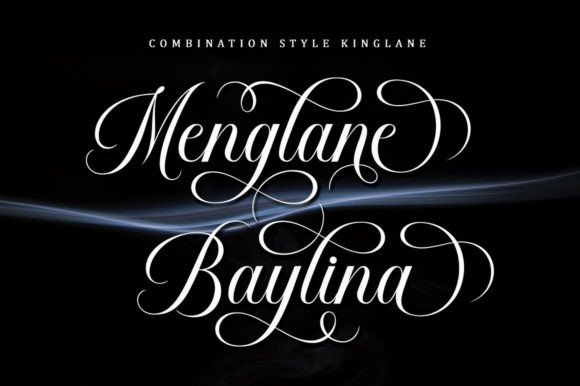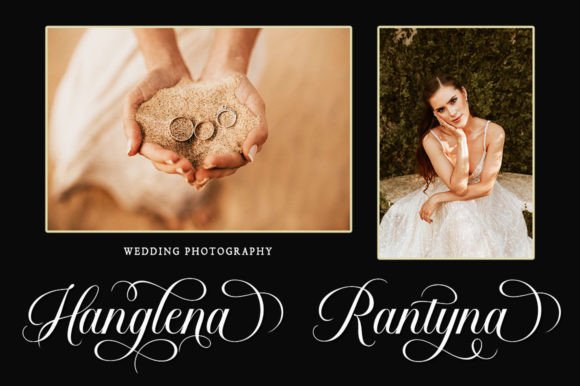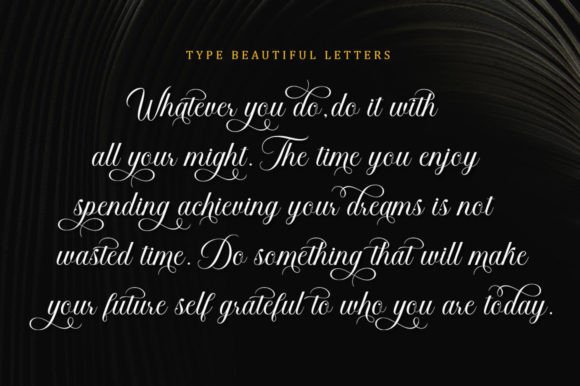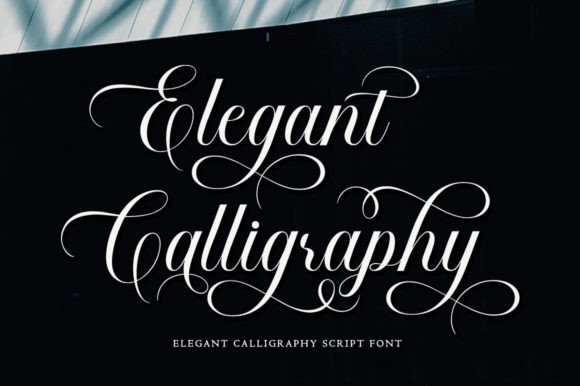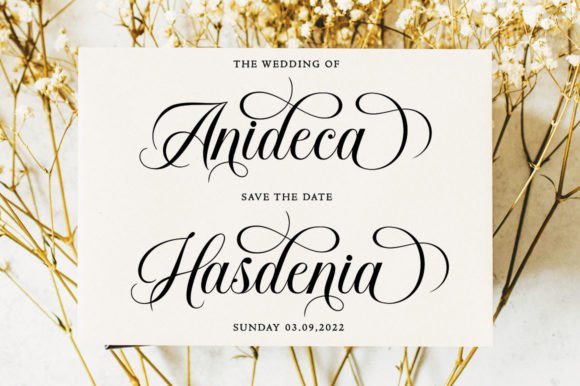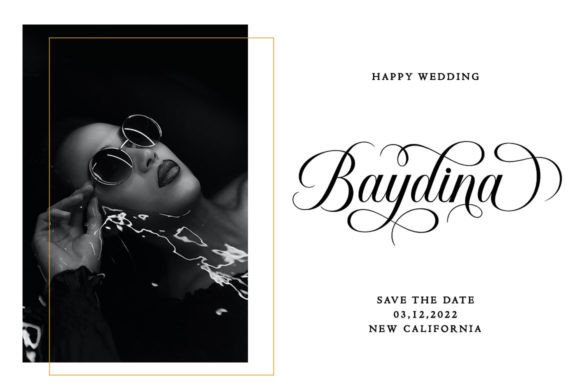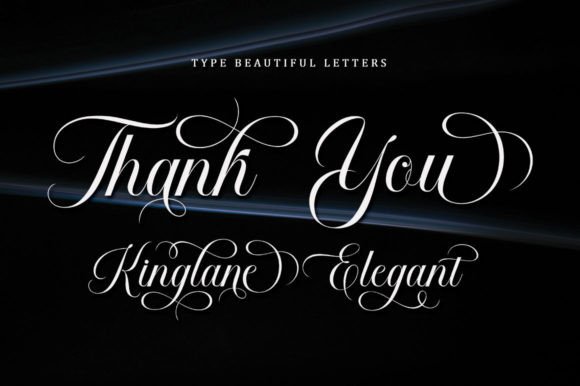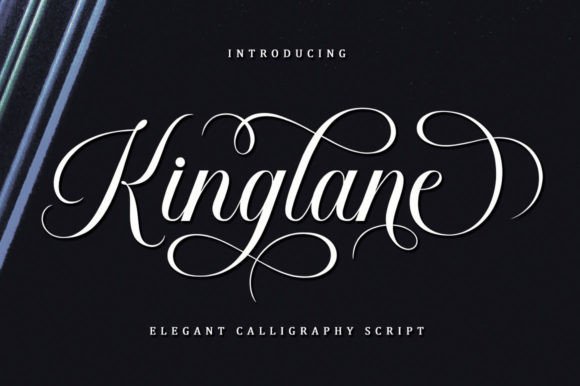
Kinglane Font
Kinglane Handwritten Font – Elegant and Unique Typeface
The Kinglane Handwritten Font is a stylish and elegant script typeface created to bring sophistication and luxury to your projects. With its sleek strokes, glamorous curves, and feminine charm, it offers a polished and professional look. Whether you’re creating wedding invitations, branding, or fashion projects, this font ensures your work stands out with timeless beauty.
A Handwritten Script with Luxury Appeal
The Kinglane Handwritten Font is defined by smooth lines and graceful connections between characters. Its luxurious style creates a sense of elegance while remaining highly readable. Therefore, it is a perfect choice for projects that require a refined and modern handwritten touch.
Perfect for Weddings and Invitations
One of the most popular uses of the Kinglane Handwritten Font is in wedding stationery such as invitations, menus, and greeting cards. Because of its romantic look, it works beautifully for bride and groom names, adding sophistication to special events. In addition, it enhances novels, magazines, and book covers with a graceful handwritten style.
The Kinglane Handwritten Font adapts effortlessly to many creative uses. From restaurant menus and product packaging to logos, labels, and fashion branding, it adds sophistication. At the same time, it works for social media graphics, advertisements, and stationery, proving its flexibility in both print and digital projects.
Why Designers Love Kinglane Font
Designers value the Kinglane HandwrittenFont because it blends elegance with usability. Its feminine strokes create beauty and luxury, while its clarity keeps designs professional. This dual quality makes it a must-have typeface for both personal and professional projects.
In summary, the Kinglane HandwrittenFont is an elegant, unique, and versatile script typeface. With its luxurious handwritten strokes, easy installation, and wide usability, it is ideal for weddings, invitations, fashion, books, and branding. Don’t miss the chance to download Kinglane HandwrittenFont and bring glamour and sophistication to your creative projects.